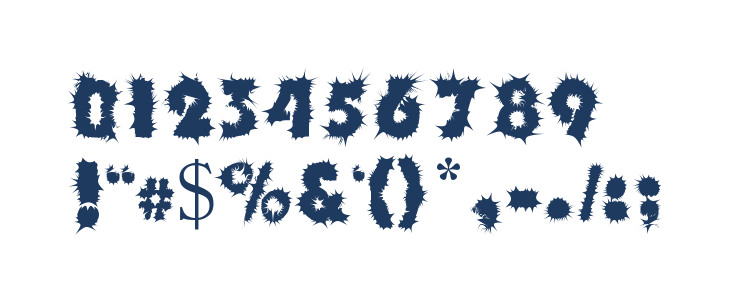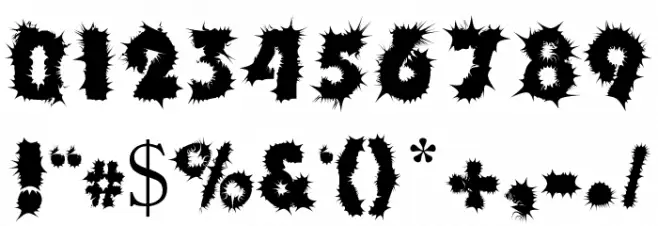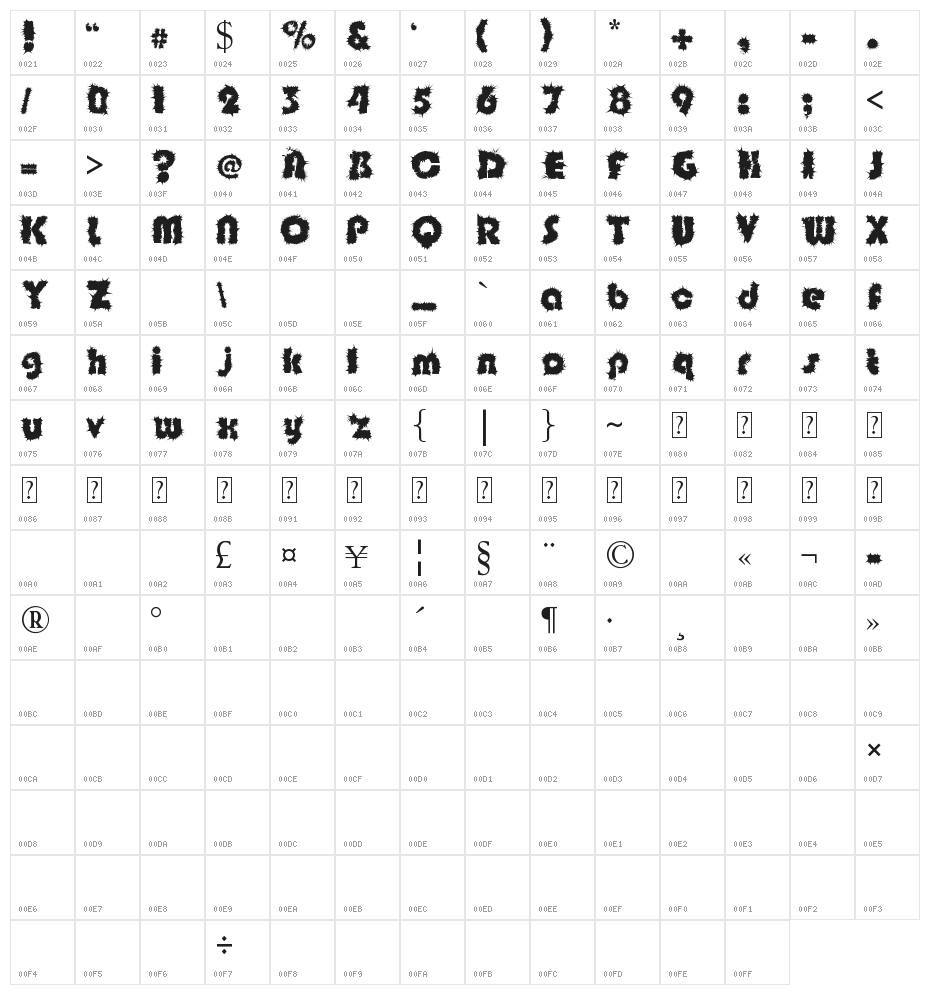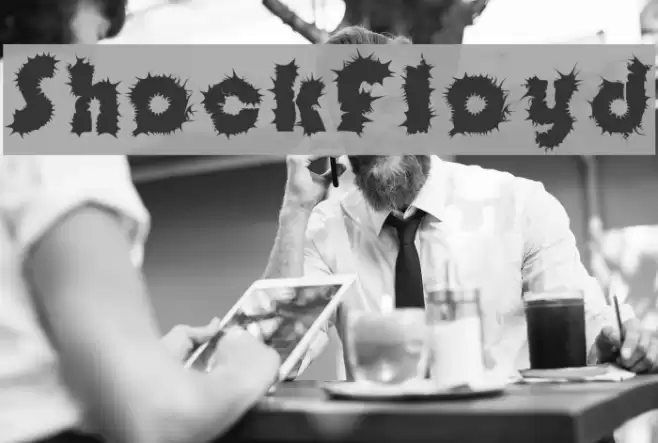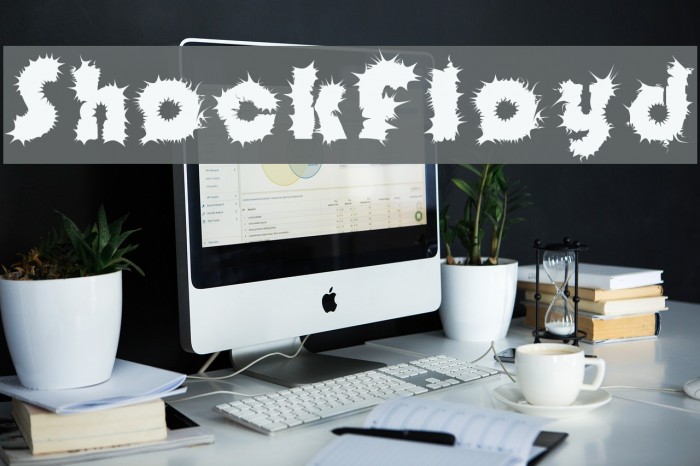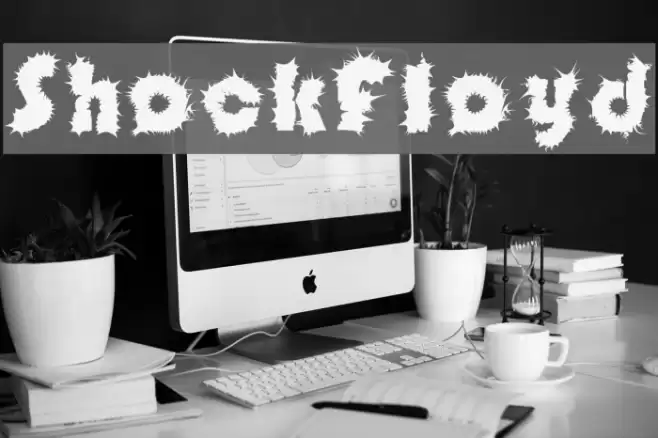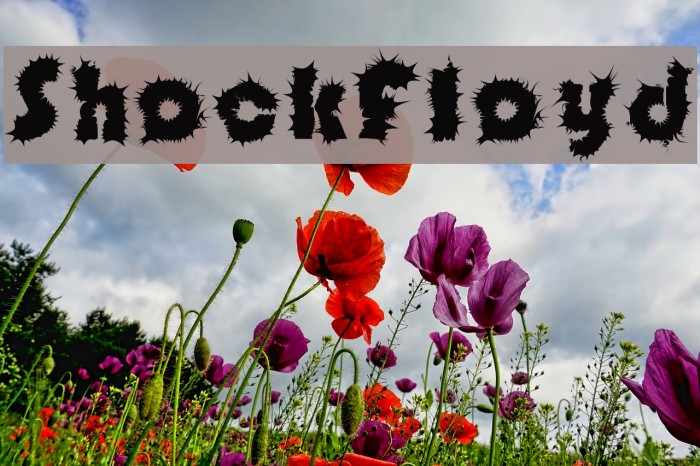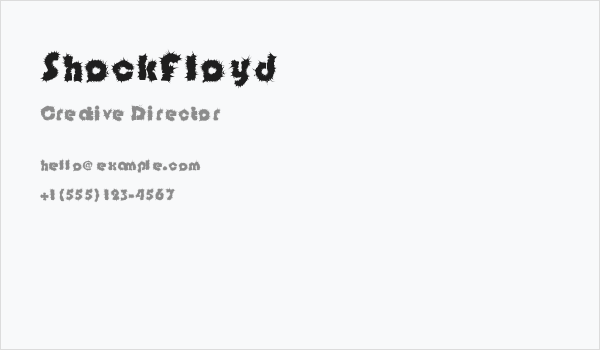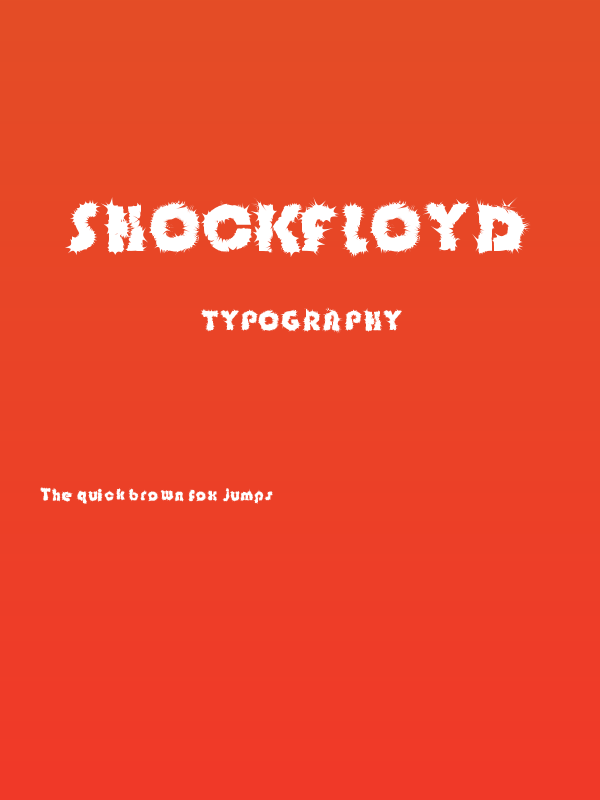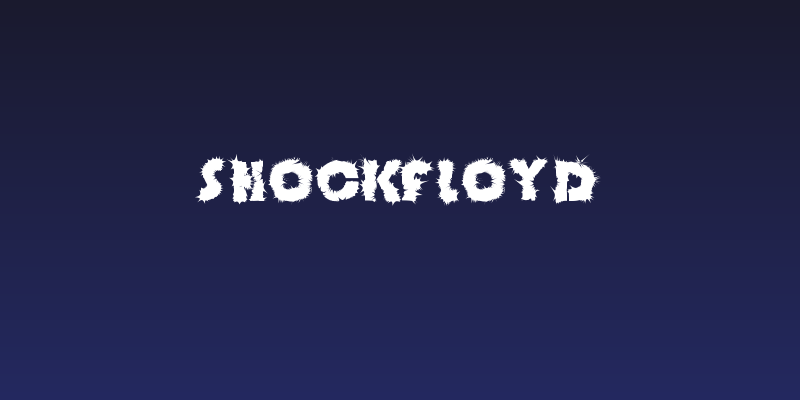
ShockFloyd Font
ShockFloyd Description
This font features a bold and jagged design, reminiscent of electric shocks or bursts of energy. Each character is surrounded by sharp, spiky edges, creating a dynamic and eye-catching appearance. The letters are thick and robust, with a consistent weight throughout, making them stand out prominently. The overall style is aggressive and energetic, suitable for projects that require a dramatic and impactful visual element. The font's unique design makes it ideal for attention-grabbing headlines or thematic graphics that convey intensity and excitement.